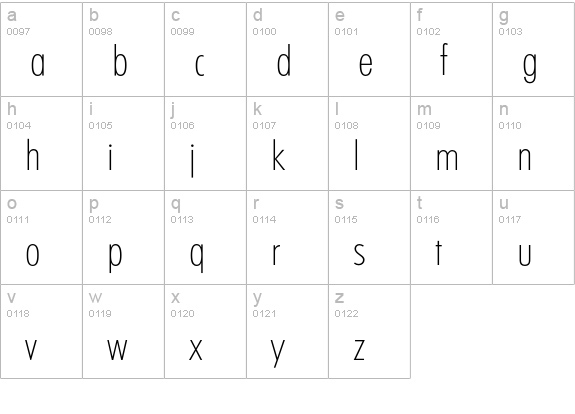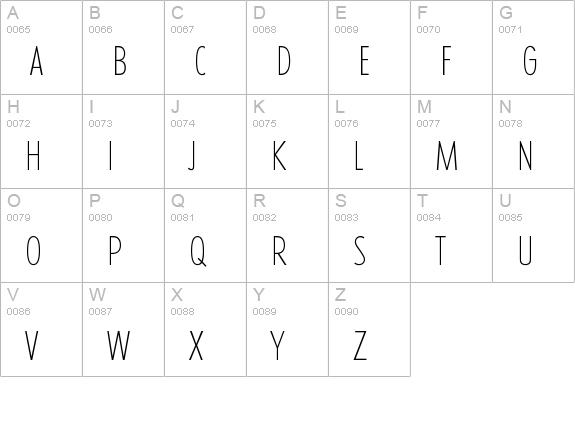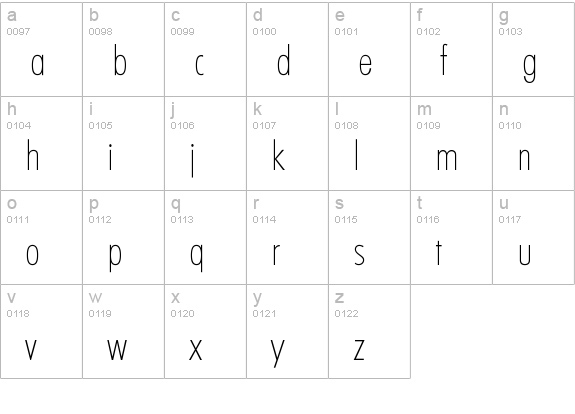
Limerick-XlightCond Font Details
Limerick-XlightCond font is a sleek and elegant typeface that exudes sophistication and modernity. Its delicate and streamlined design makes it perfect for a wide range of design projects, from branding to editorial layouts. The thin, elongated letterforms of Limerick-XlightCond add a touch of refinement to any text, creating a sense of luxury and class. The best part about Limerick-XlightCond font is that it is available for free! You can easily download this exquisite typeface at FontsMarket.com and start using it in your projects right away. Don't miss out on the opportunity to elevate your designs with this premium font that won't cost you a penny. Download Limerick-XlightCond today and add a touch of sophistication to your work.